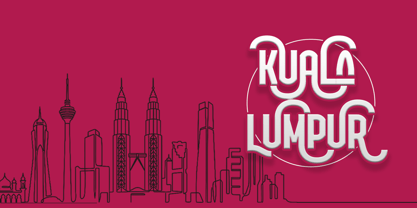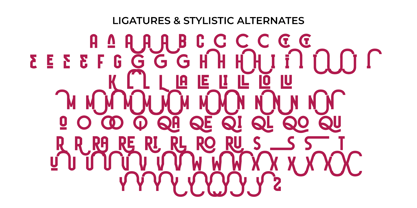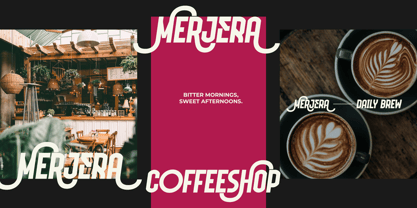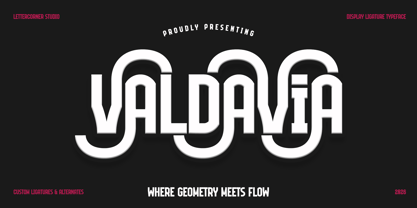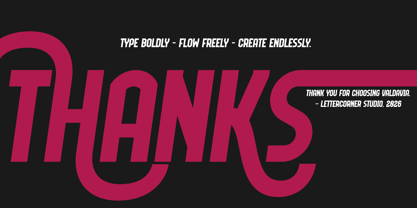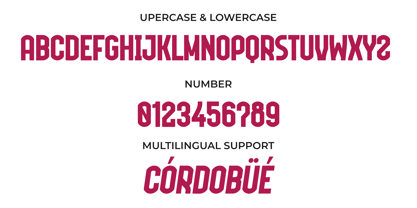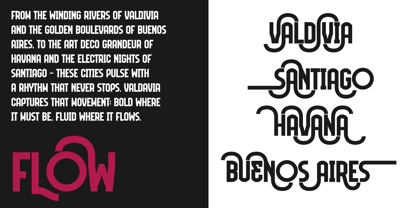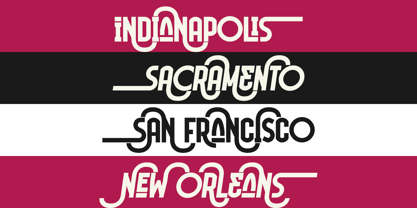
Valdavia
Introducing Valdavia — a display ligature typeface by Lettercorner Studio that bridges the boldness
of geometric type design with the organic elegance of art deco curves.
Valdavia was born from a simple idea: that type can move. Inspired by the winding rivers of Valdivia,
the golden boulevards of Buenos Aires, and the electric energy of cities that never stop Valdavia captures that movement in every glyph.
WHAT'S INCLUDED
- Uppercase & Lowercase A–Z
- Numbers 0–9
- Punctuation & Symbols
- Multilingual Support (É, Ó, Ü, Ñ, Ç and more)
- Extensive Ligatures (RA, RE, RI, RL, RO, RU,
QA, QE, QI, QL, QO, QU, MA, MO, NA, NU and more)
- Stylistic Alternates for every letter
- Extended S with horizontal stroke
BEST USED FOR
- Logo & Brand Identity
- Poster & Editorial Design
- Music & Event Branding
- Fashion & Luxury Packaging
- Magazine Headlines
- Social Media Content